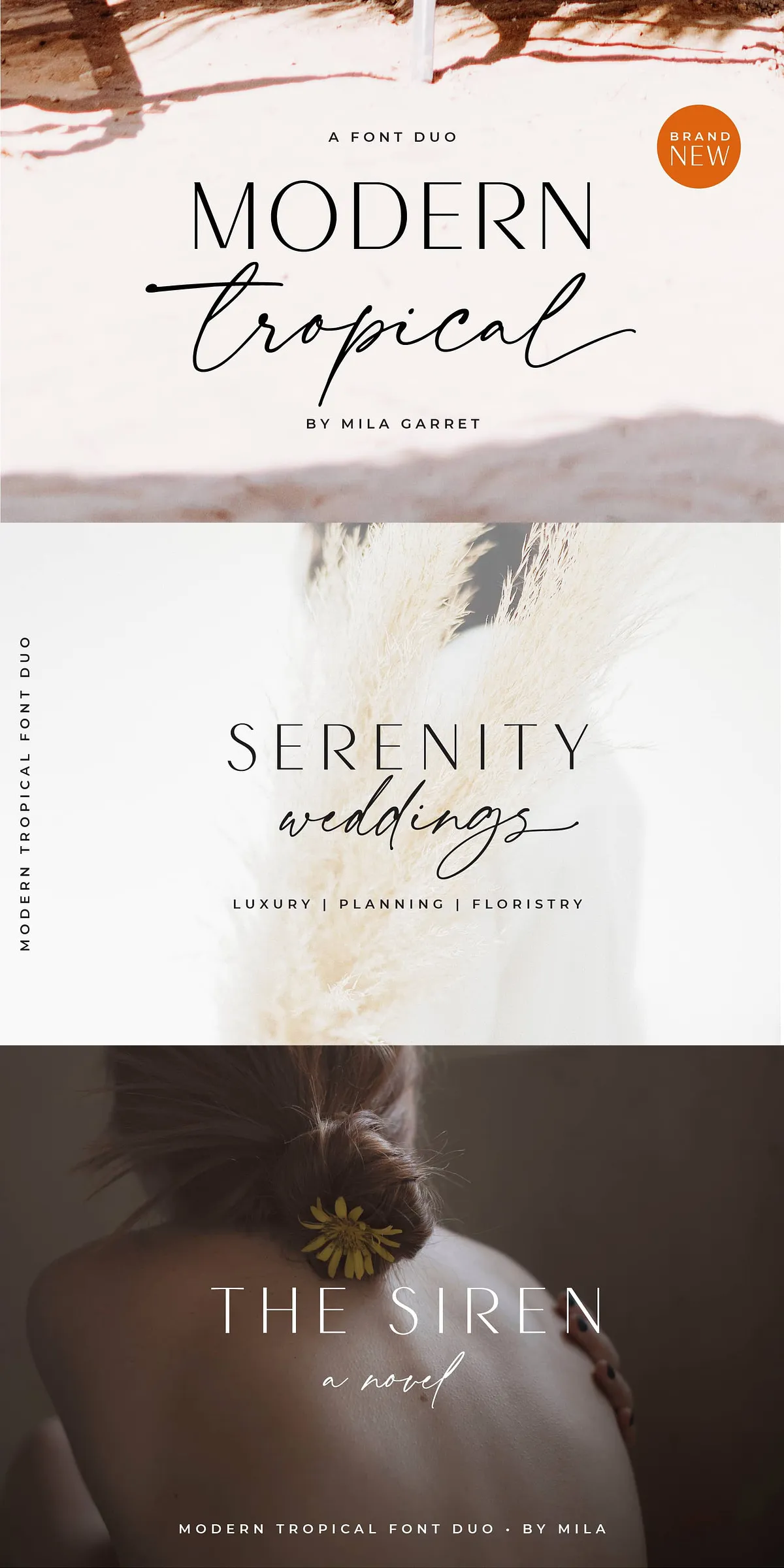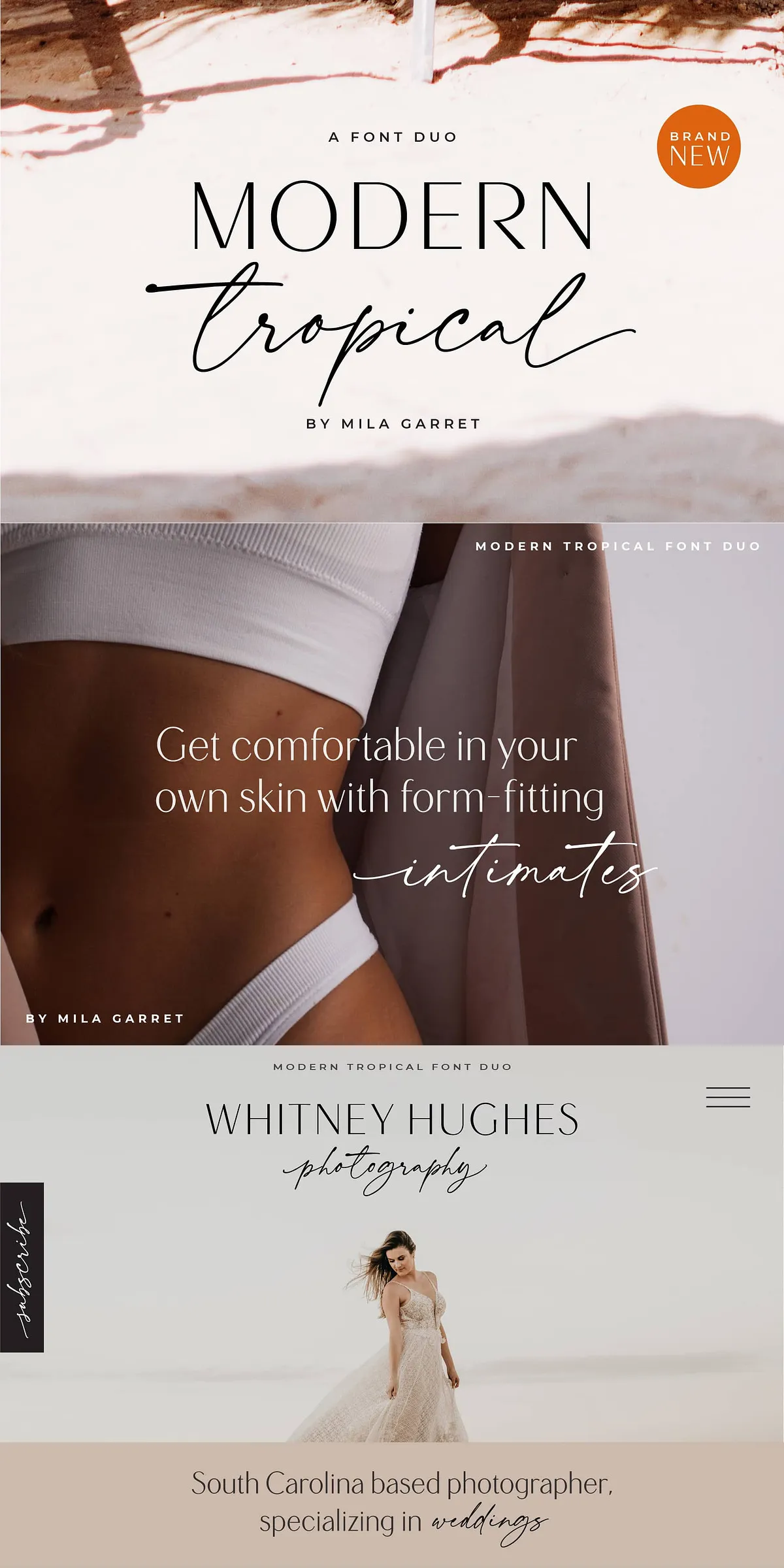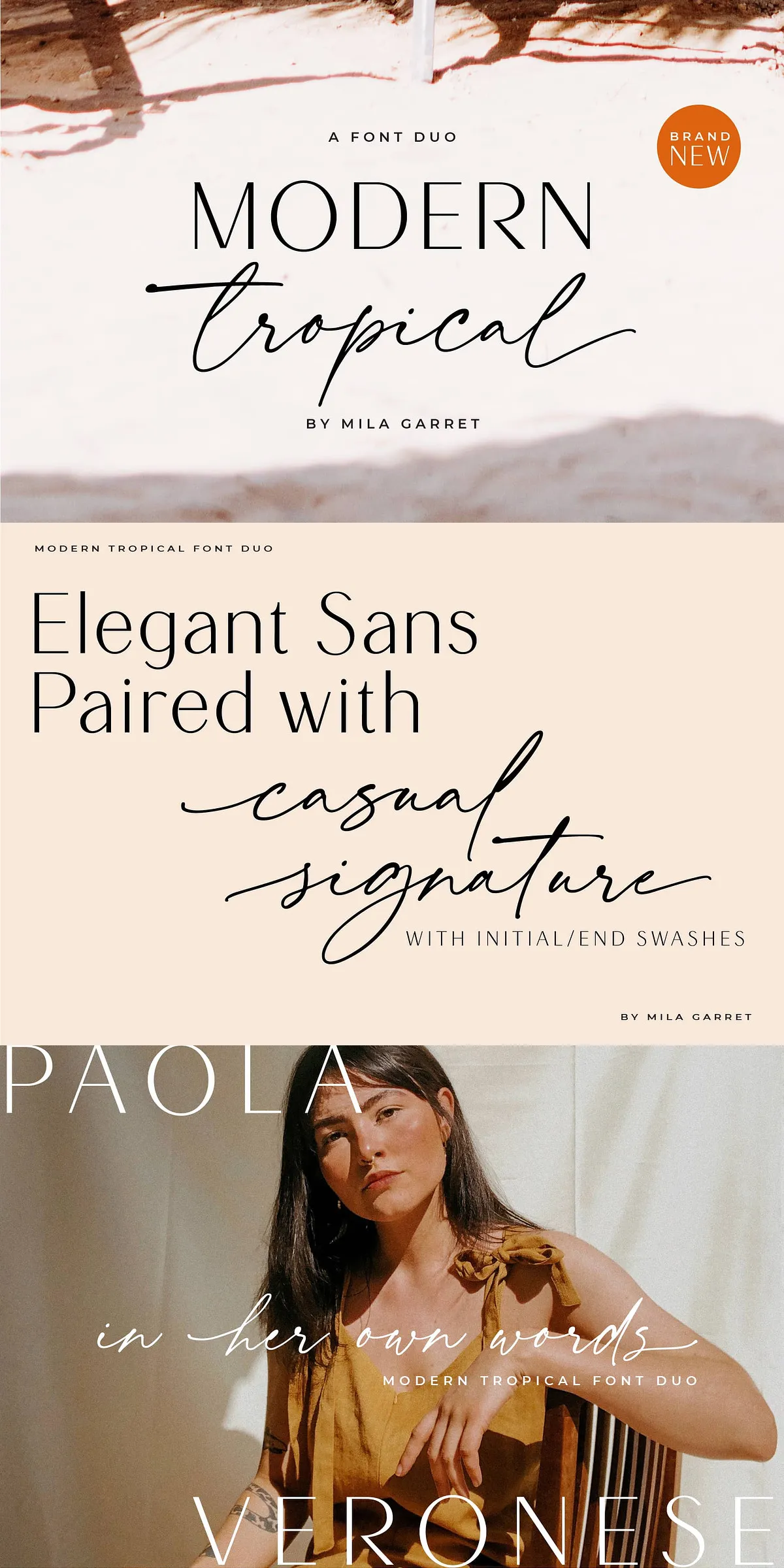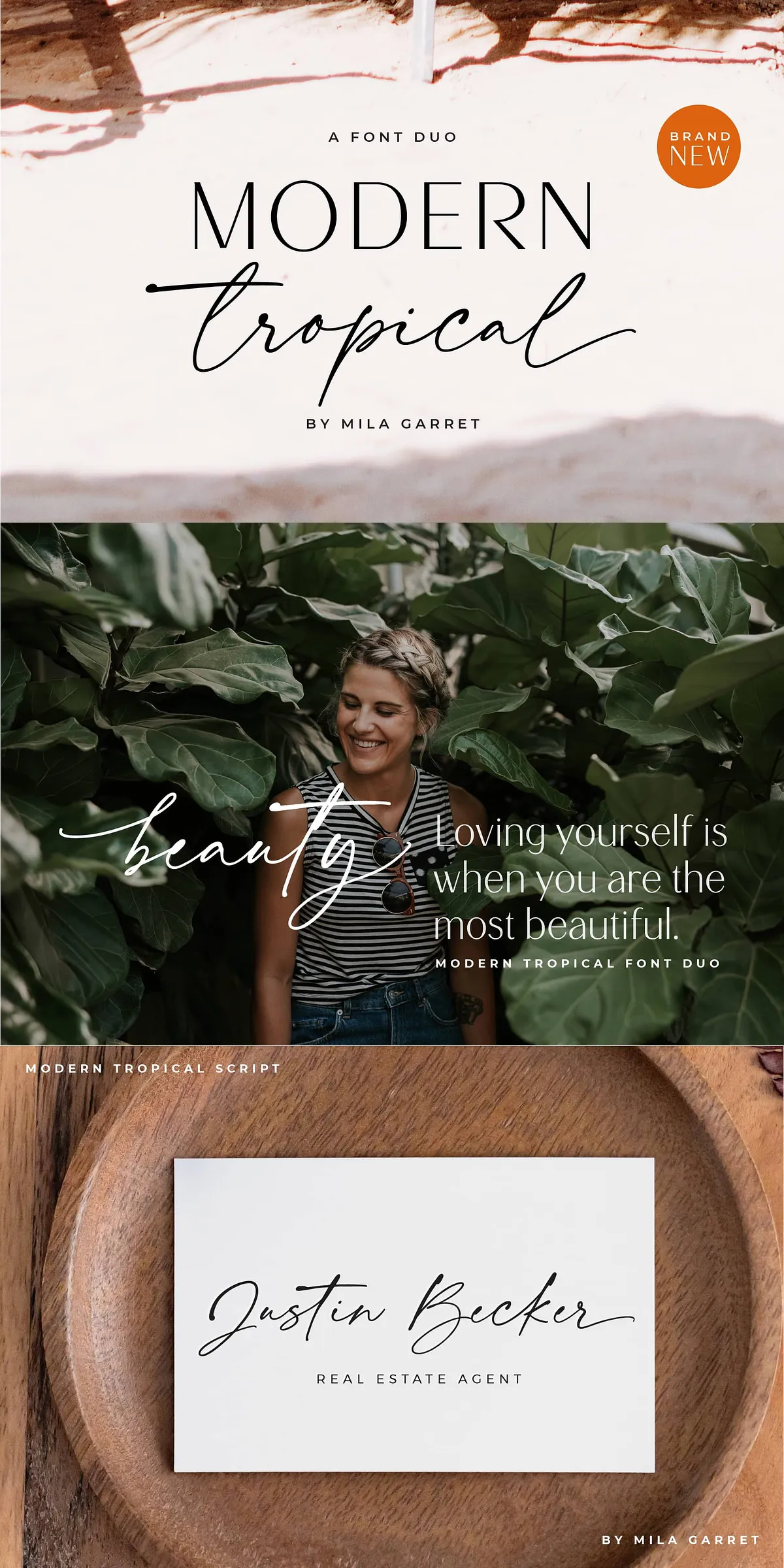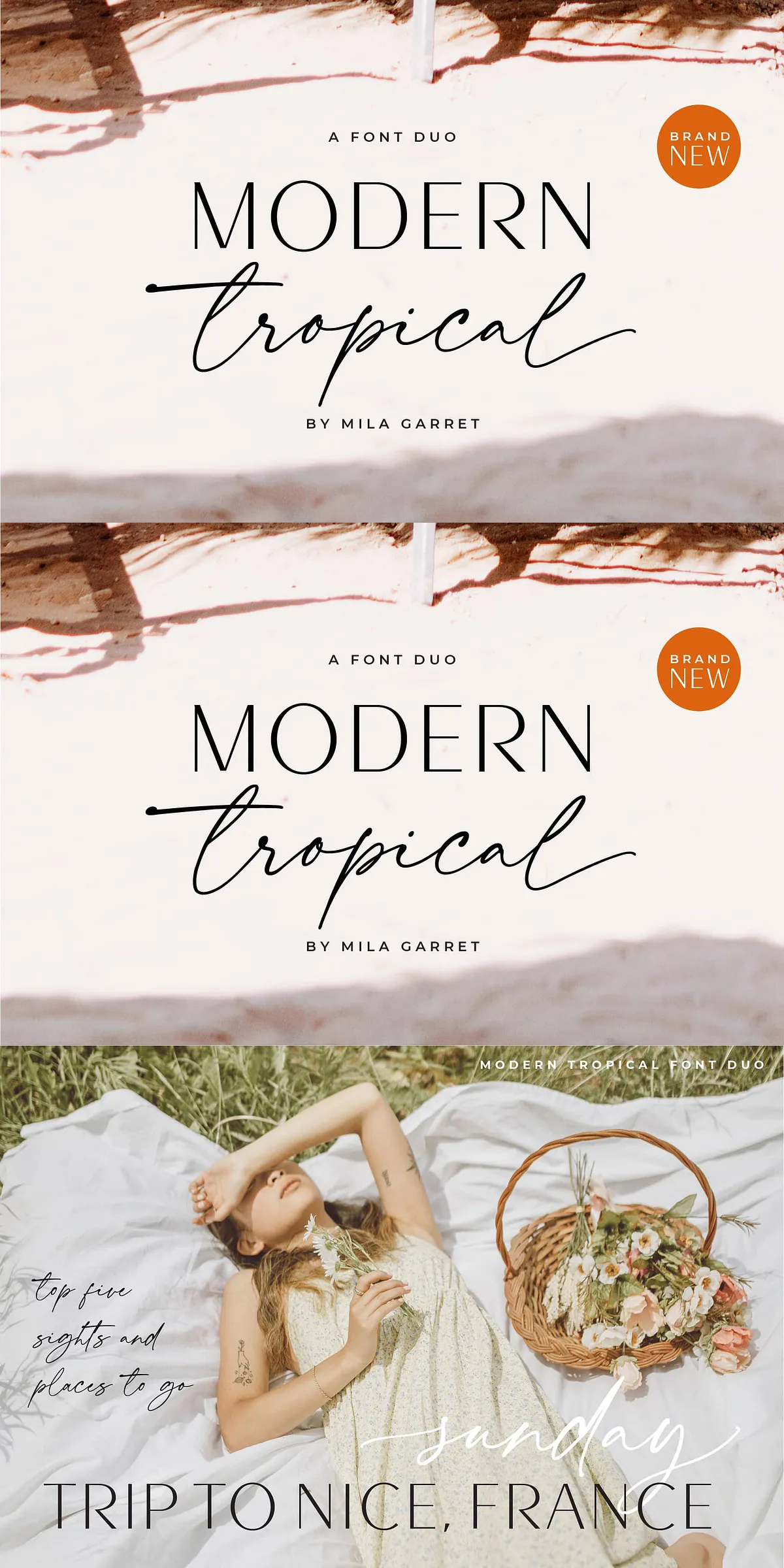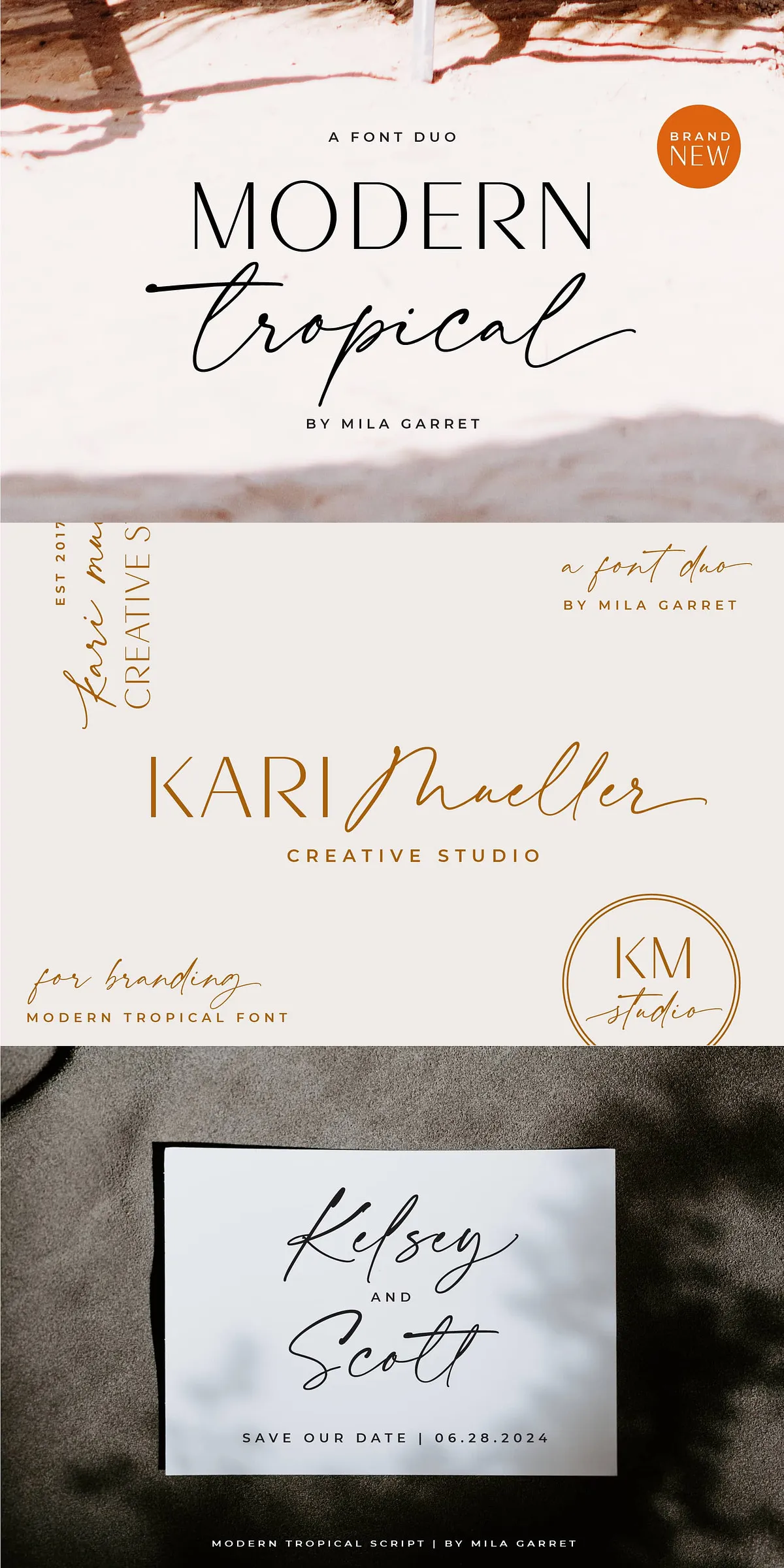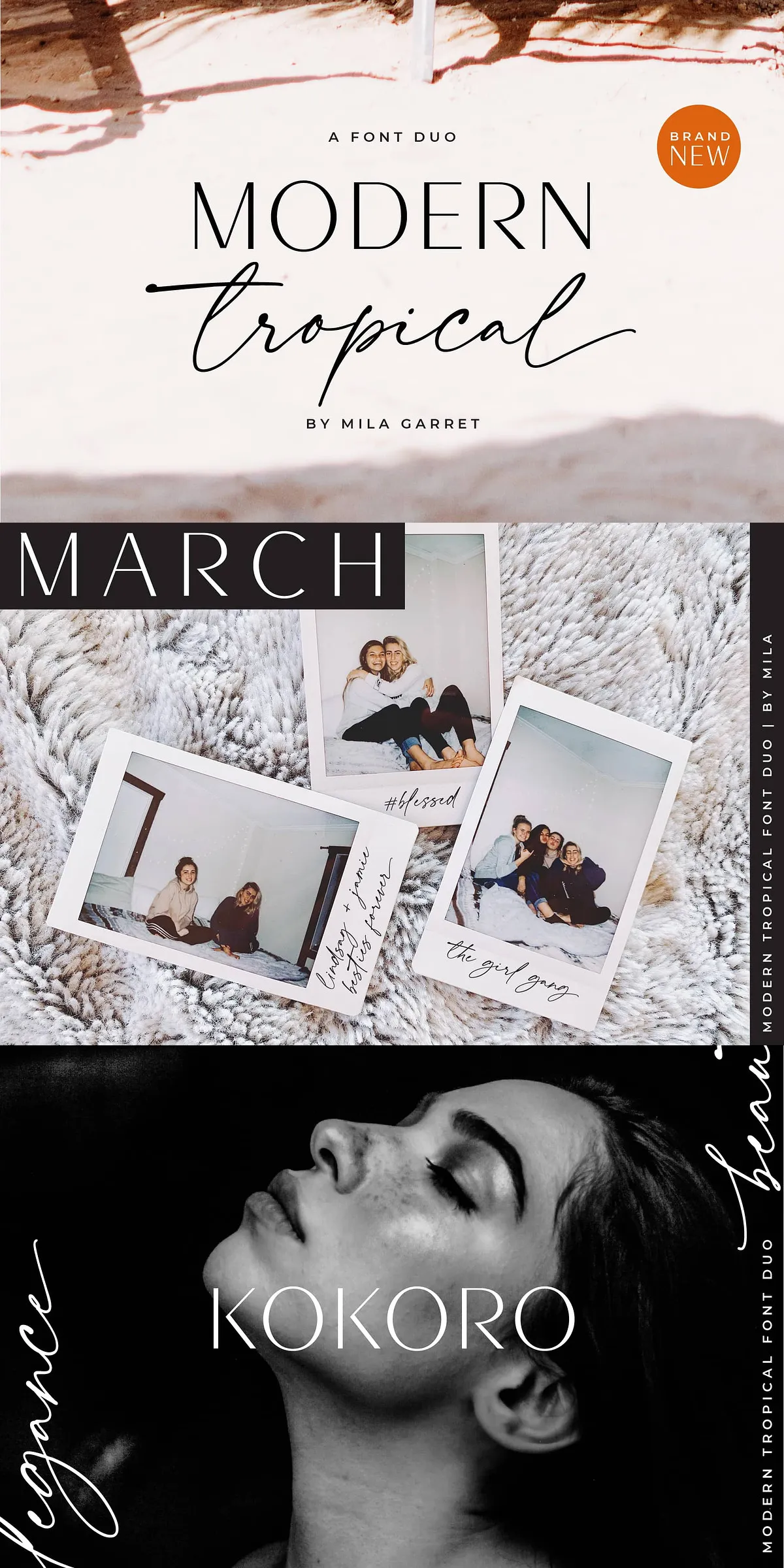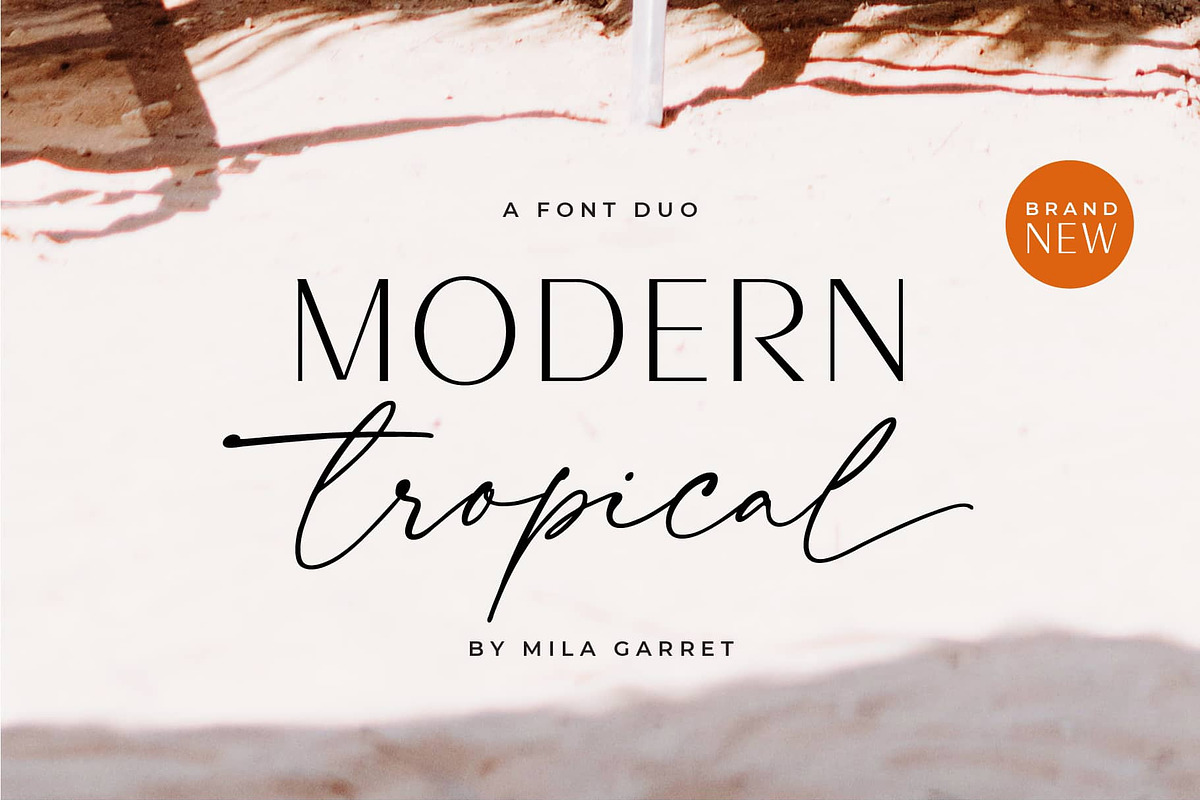
Modern Tropical Font Duo Logo Script
Introducing Modern Tropical Font Duo — where crisp modernity meets the soulful artistry of hand-drawn elegance. This isn’t just a font pairing; it’s a designer’s shortcut to stunning visual impact. Perfectly balanced and thoughtfully crafted, this duo delivers a luxurious, clean aesthetic that elevates any project with confidence and sophistication. Whether you’re building a brand identity, crafting social media content, designing wedding invitations, or launching a website, Modern Tropical Font Duo brings instant visual polish with zero effort.
Why This Font Duo is a Game-Changer for Designers
• Seamless Pairing Built-In: No more guessing which fonts go together. The modern sans-serif and flowing script were designed to complement each other with precision, ensuring harmony across every application.
• Casual Elegance, Professional Finish: The minimalist sans-serif provides clean structure and modern clarity, while the ink-stained script adds warmth, personality, and artistic flair — a powerful contrast that feels intentional, not random.
• Rich Typographic Features: Includes 28 custom ligatures in the script font, enhancing readability and flow while adding a premium touch to headlines and quotes.
• Global Readiness: Supports a full range of multilingual characters, including accented letters and special symbols (ÁÂÄÀÅÃÆÇÉÊËÈÍÎÏÌÑÓÔÖÒØÕŒÚÛÜÙÝŸ, áâäàåãæçéêëèíîïìñóôöòøõœßúûüùýÿŠšž€£¥ªº), making it ideal for international projects and diverse audiences.
Where Modern Tropical Font Duo Truly Shines
This duo isn’t confined to a single use. It’s a versatile type family built for creative professionals who want to impress and inspire. Here’s where it delivers standout results:
Top Use Cases for Maximum Visual Impact
• Brand Identity & Logos: Use the sans-serif for the brand name and the script for taglines or secondary text. The contrast creates instant memorability and elevates your logo’s premium feel.
• Wedding Invitations & Stationery: Perfectly captures the romantic yet refined mood of modern weddings. The inky script brings intimacy, while the sans-serif adds structure and clarity.
• Website Headlines & Hero Sections: Stand out on landing pages with headlines that are both sleek and expressive. The script adds personality to your brand’s voice.
• Social Media Quotes & Graphics: Create scroll-stopping content. The clean script and modern sans-serif pair beautifully for quote cards, Instagram stories, and Pinterest graphics.
• Product Packaging & Print Design: Add instant style to labels, boxes, flyers, and brochures. It turns simple packaging into a collectible experience.
Design Pro Tip: Maximize Impact with Smart Pairing
For the strongest visual result, pair the script with a neutral sans-serif body font (like Lato, Inter, or Helvetica Neue) when using more than just headings. Let the Modern Tropical duo shine as the hero, while keeping text blocks readable and balanced. Use it in black, navy, soft gold, or ivory for a refined, high-end look.